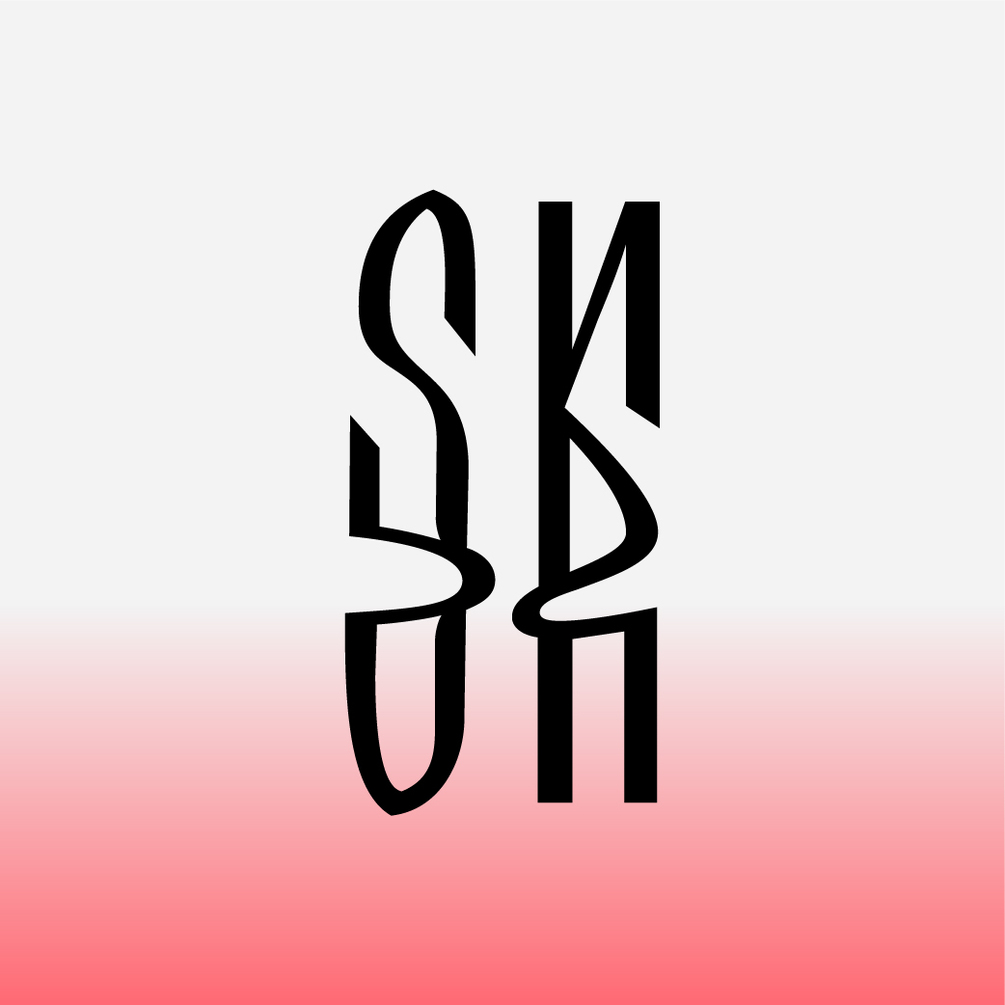
SK Yazichnik
SK Yazichnik is an ethnic decorative font in the style of the ancient Slavic script. The font is a reinterpretation of the traditional Slavic script "Vyaz". Font symbols destroy archaic letter shapes by fusing them with waves. The font contains ligatures that support Cyrillic and Latin text sets. Most of the graphemes in the font are designed individually for each alphabet and are not repeated. SK Yazichnik is a way of speaking out and creating in a new reality.